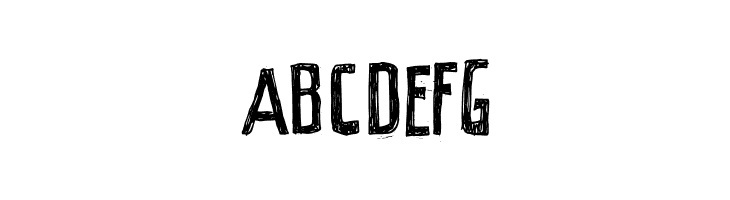
Aenima Font
An ornate, decorative script font with grunge splatter effects.
A bite__ Font
A bold, grunge-style font with a distressed, textured appearance.
Black Oak Font
A bold, distressed font with a grunge texture, perfect for edgy designs.
CANDY INC Font
A playful, textured script font with a hand-drawn feel.
ANGEL TEARS trial Font
A dramatic and elegant script font with calligraphic flourishes.
Olho de Boi 02 Font
An ornate, calligraphic script font with flowing, cursive letters and intricate flourishes.
PEIXE FRITO Font
A bold, distressed font with a hand-drawn, rustic appearance.
WEDDING NIGHTMARES trial Font
An elegant, ornate script font with flowing cursive letters and decorative flourishes.
BUTOX QUEEN trial Font
A bold, decorative font with a vintage, hand-drawn style.
HAPPY FAMILY TRIAL Font
An ornate and whimsical font with decorative flourishes and quirky skull illustrations.
SOAP STORE Font
A bold, distressed font with a rugged, vintage texture.